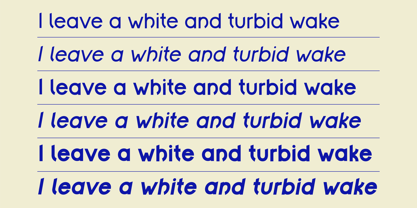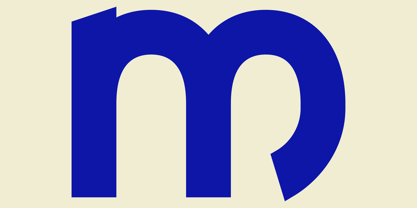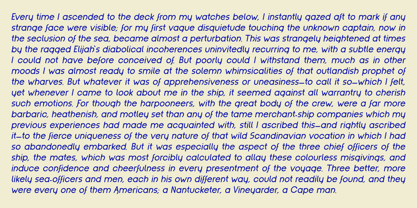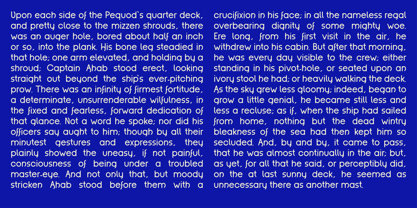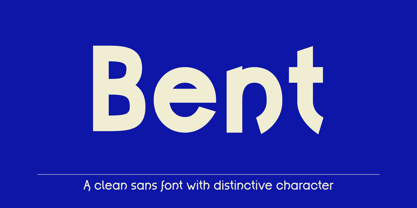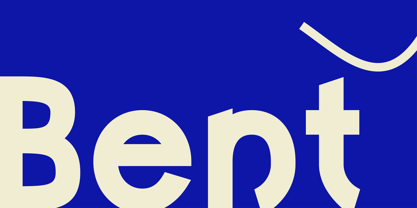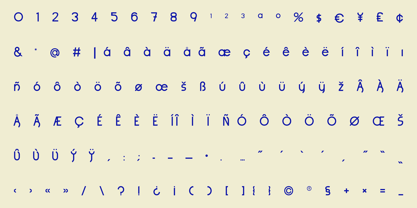
Bent Sans
by Yazaroo
The Bent Sans Font Family was designed by and published by Yazaroo. Bent Sans contains 6 styles and family package options. More about this family
Bent Sans is a clean geometric font with a distinctive bend. Available in 6 Variations and extended Latin languages. The concept behind the font was to create something that looked like it had been dropped. Something clean and classic but with minor damage. It's perfect for anyone looking for that clean, easy-to-read typeface with a kick of personality.